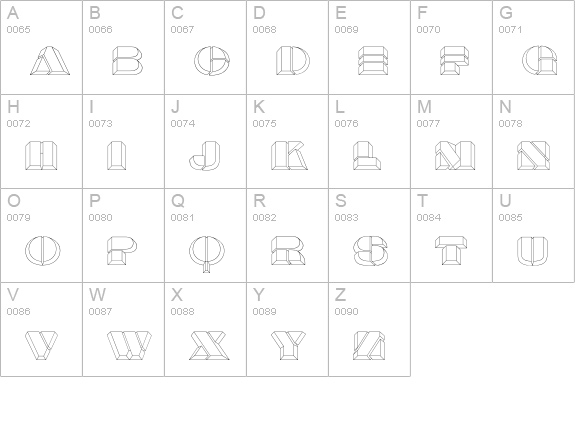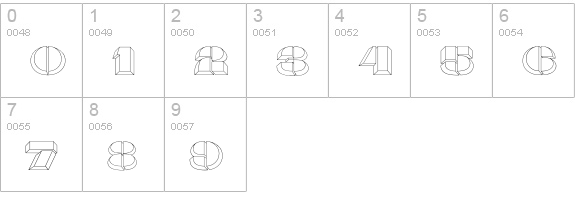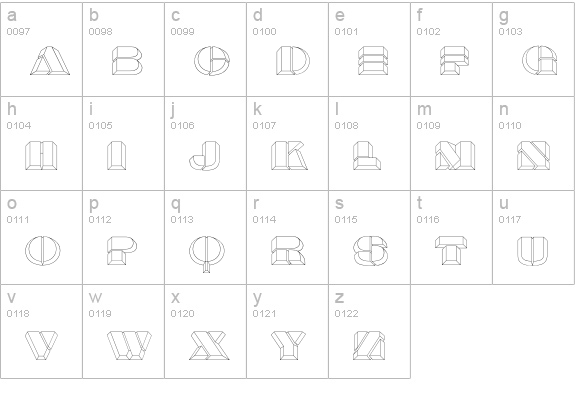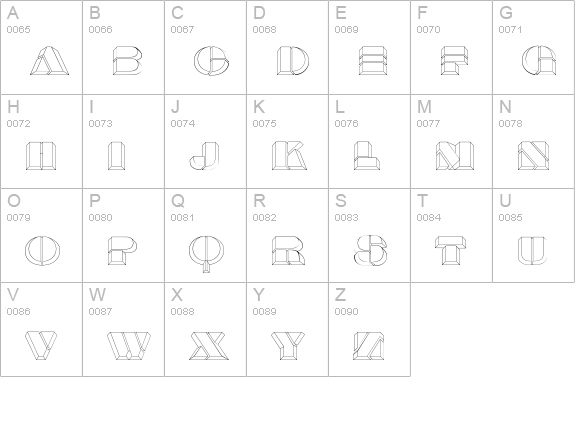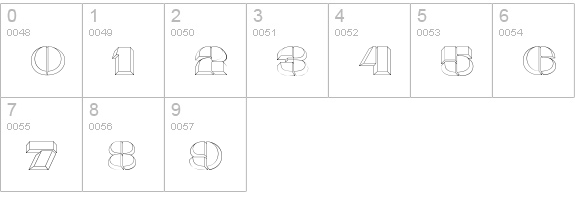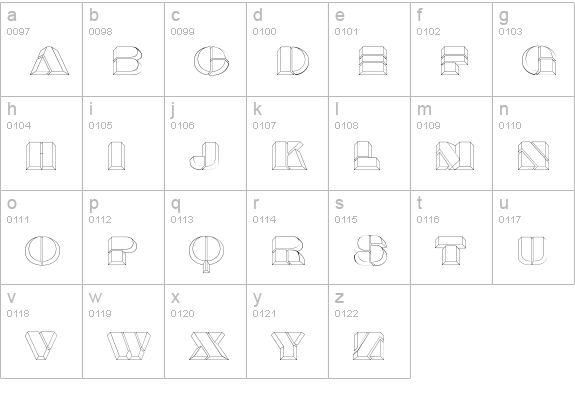
Calendar Font Details
Introducing Calendar font, a versatile and stylish typeface perfect for all your design projects. This elegant font features a unique blend of modern and classic elements, making it ideal for a wide range of applications. Whether you're creating invitations, posters, or branding materials, Calendar font is sure to make your designs stand out. The best part? Calendar font is completely free to download at FontsMarket.com. With just a few clicks, you can add this stunning font to your collection and start using it in your projects right away. Don't miss out on this opportunity to elevate your designs with the beautiful Calendar font. Download it now and let your creativity shine!